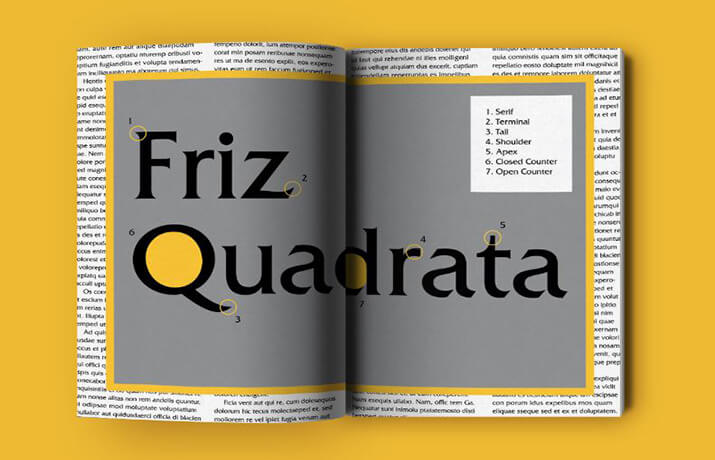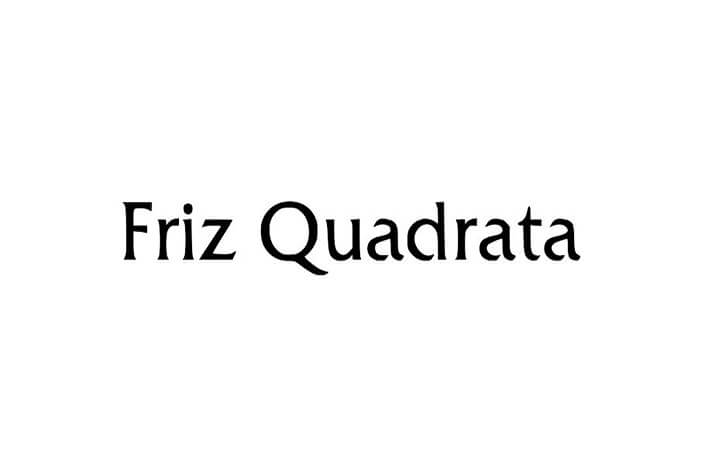
Friz Quadrata Font is an amazing serif typeface that comes with bold, attention-grabbing strokes and a cool design. This font is great for logos as well as for creating tags and labels.
Ernst Friz and Victor Caruso took the charge of designing and sharing it for the first time in 1965 via Visual Graphics Corporation.
This typeface has become so popular for use in display projects because the font has a realistic weight and style that works well with painter fonts.
And the texture of the font is striking and recognizable. So, it is a widely used popular typeface that helps many designers in meeting their regular work operations.
Use it to create logos, create website or game textures, design hoardings, banners, print business, invitation or wedding cards, labels, display titles, brochures, flyers, paragraphs, and other related works.
This font family is available in three unique styles. Regular, Standread, and bold. All the styles with its promise to deploy a great legible appearance.